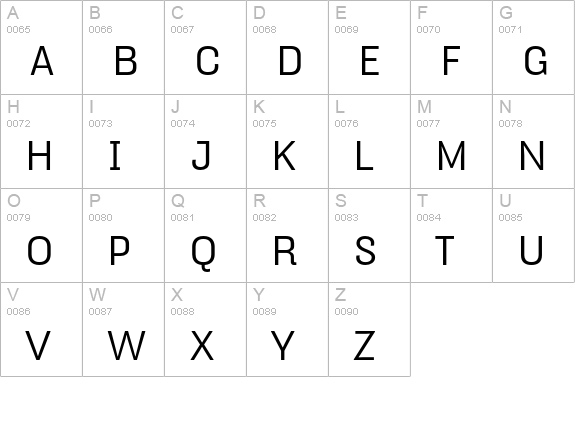
HydraText-Regular is the standard, neutral variant in the HydraText typeface family \xE2\x80\x94 well suited to general body text, paragraphs, and standard typographic work.
HydraText-Regular is a versatile and modern font that combines sleek lines with a touch of elegance. Its clean and easy-to-read design makes it ideal for a wide range of projects, from branding to editorial content. The balanced spacing and stylish curves of HydraText-Regular give your text a polished and professional appearance. Best of all, HydraText-Regular is available for free download at FontsMarket.com. This means you can easily access this high-quality font to enhance your designs without any cost. Whether you're working on a website, poster, or logo, HydraText-Regular is a fantastic choice to elevate your typography game. Download it today and add a touch of sophistication to your projects with this exquisite font.